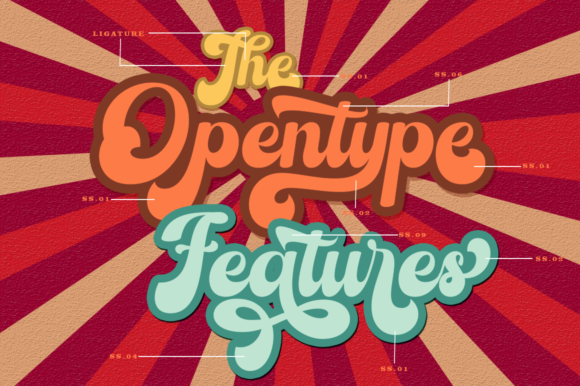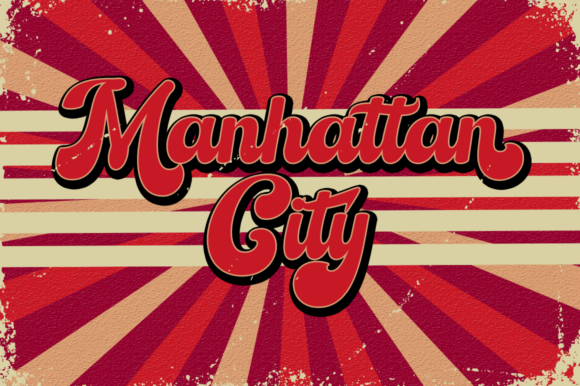
Antafeda Font
db-ku.com - Script & Handwritten -- Antafeda is a bold and retro styled handwritten font. Use it for wall displays, wedding invitations, social media post logos,